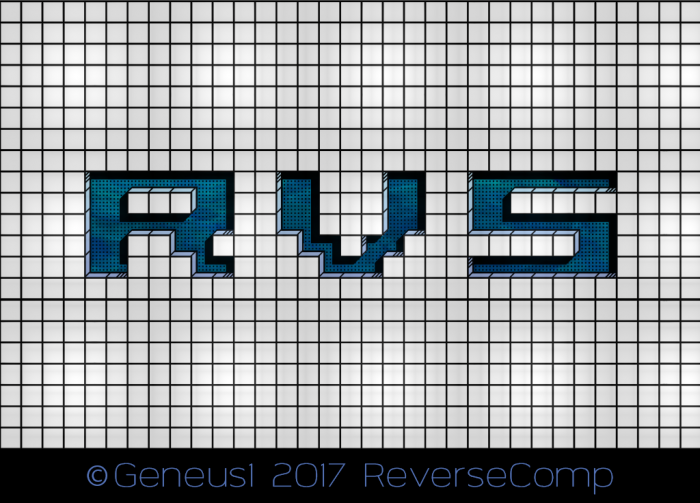
• Originally intended to be a reversal of my Blokula font. Ended up looking more like swimming pool tiles with recessed text.
Uppercase contains variable widths, lowercase is monospaced to facilitate vertical typing.
The sample looks recessed but without the fill it is easily a relief.  Ambiguous, it could  have been entered for the competition. A  "refreshing" design for summer ;)
I very much like the different textures and the little details at the corners. The preview doesn't do justice to this marvellous work, but your demo picture does. 10/10